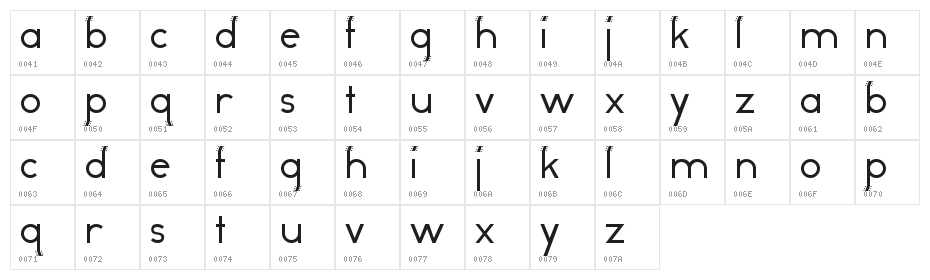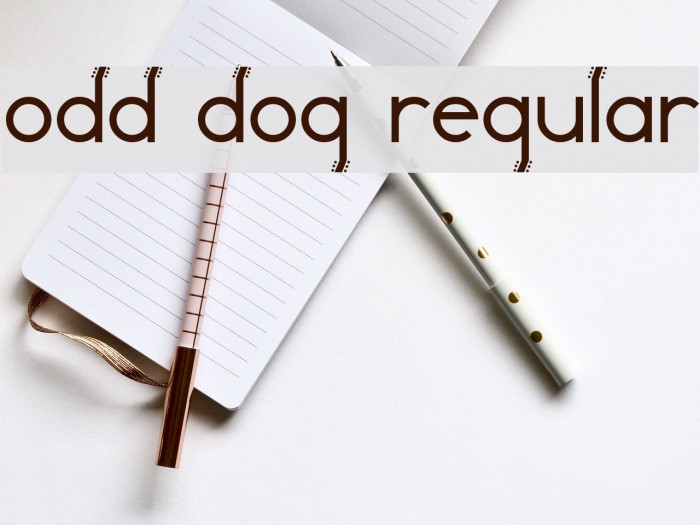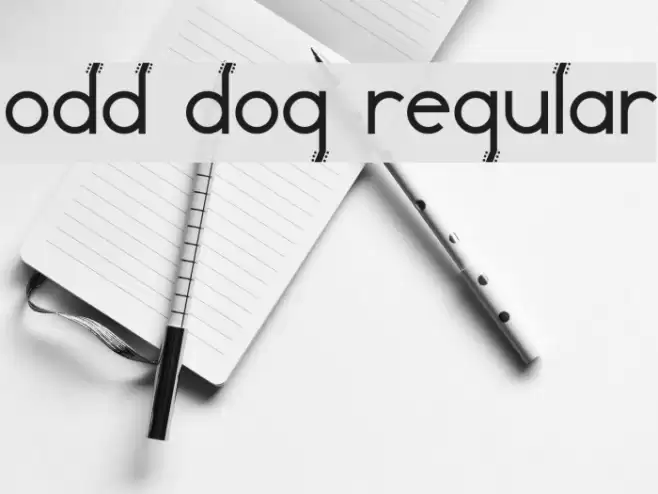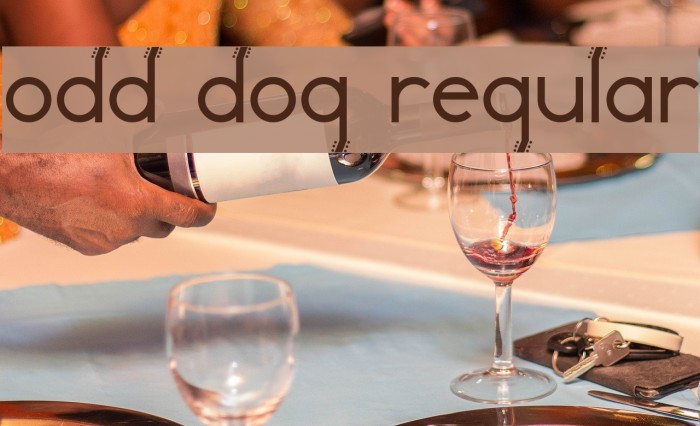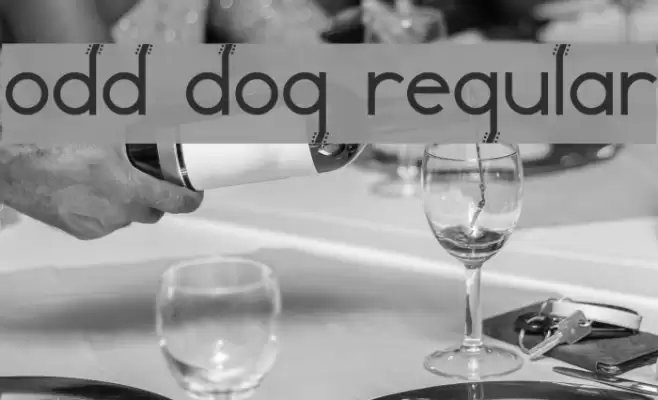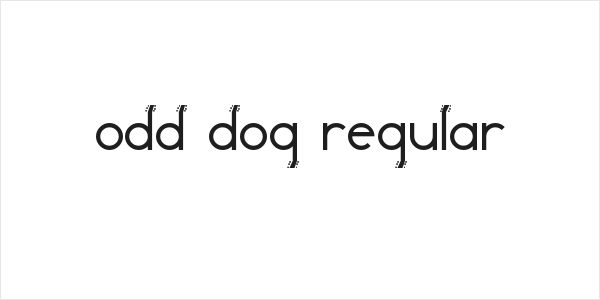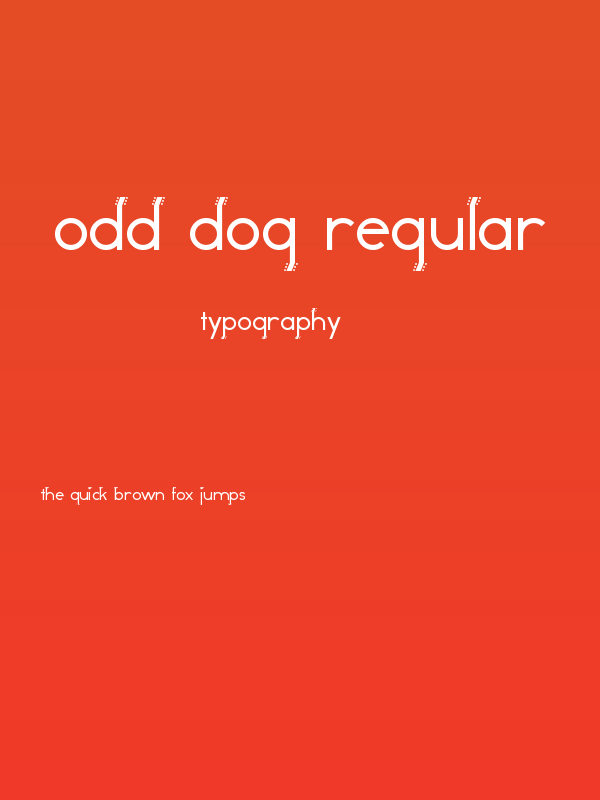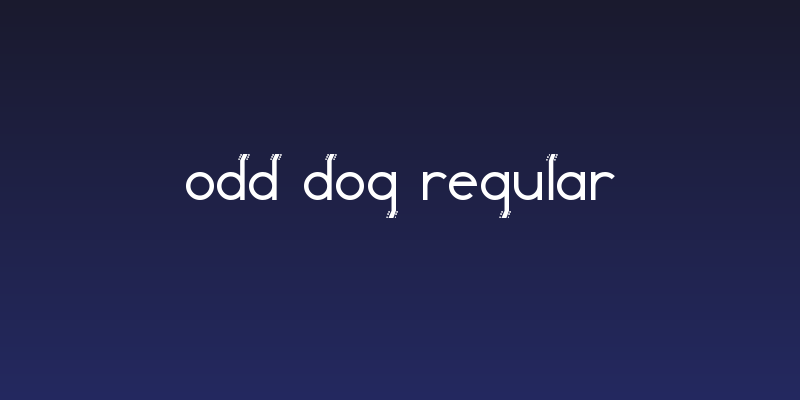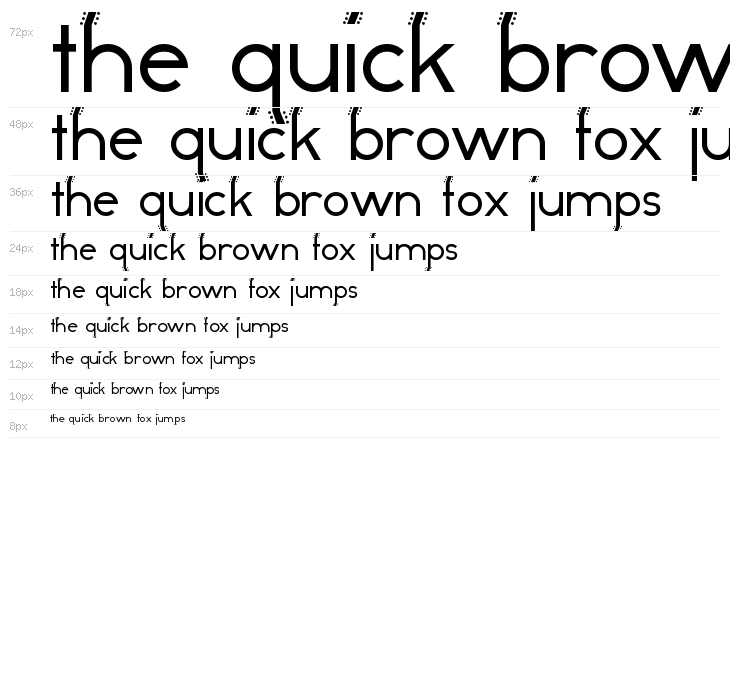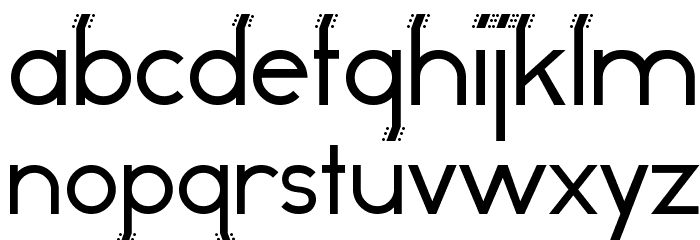
Odd Dog Regular Font
Odd Dog Regular Description
This font presents a unique and playful style with its rounded and smooth letterforms. The characters are designed with a consistent stroke width, giving it a clean and modern appearance. The lowercase letters feature a distinct dot pattern on the ascenders and descenders, adding a quirky and whimsical touch. The uppercase letters maintain a uniform height, contributing to a balanced and harmonious look. The overall design is minimalistic yet eye-catching, making it suitable for creative and contemporary projects. Its geometric shapes and even spacing provide excellent readability, while the decorative elements add a layer of visual interest.
| Proposed Projects | Ideal for children's books, playful branding, creative posters, and modern web design. |